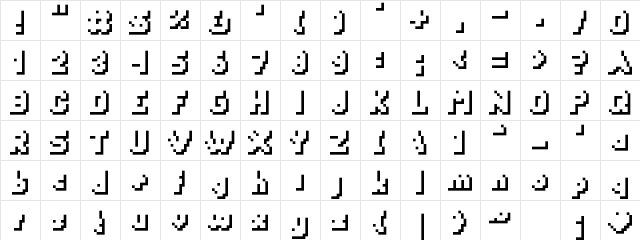
YetBumblerShadow Medium
Design Context for YetBumblerShadow Typeface
YetBumblerShadow is built around its visual character rather than neutral utility — its distinctive forms are designed to make an impression at display sizes.
Font Pairing: Pair with a clean neutral sans-serif for body copy to let YetBumblerShadow's character lead without overwhelming the composition.
Pro Tip: Treat YetBumblerShadow as the centrepiece of your typographic hierarchy. One strong heading set in a decorative face can carry an entire layout.